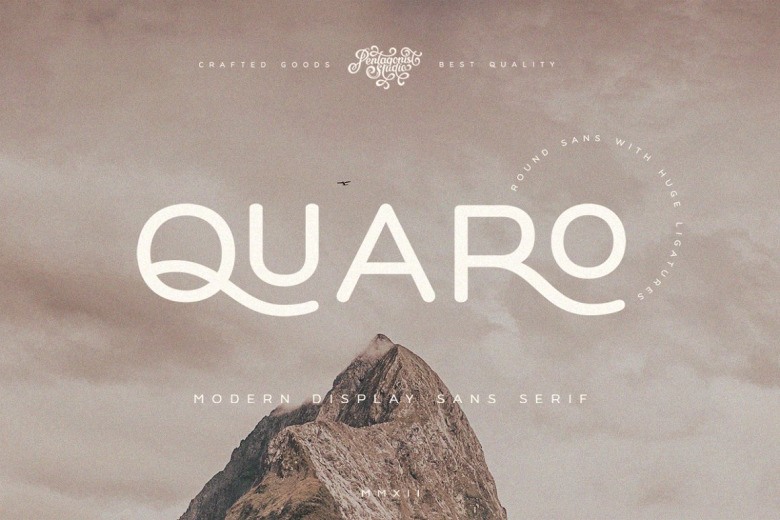
Quaro Font
Quarois modern display sans serif influenced by the fashion for minimalist round types. Use this free for commerical use font to boost your design. The format of this font file is TTF. It is free for personal use. Perfect to use with our brand new icon set for app and web design! Many designers also take the appearance of the beautiful font into consideration. Commercial use allowed!
Quaro Sans Serif Font